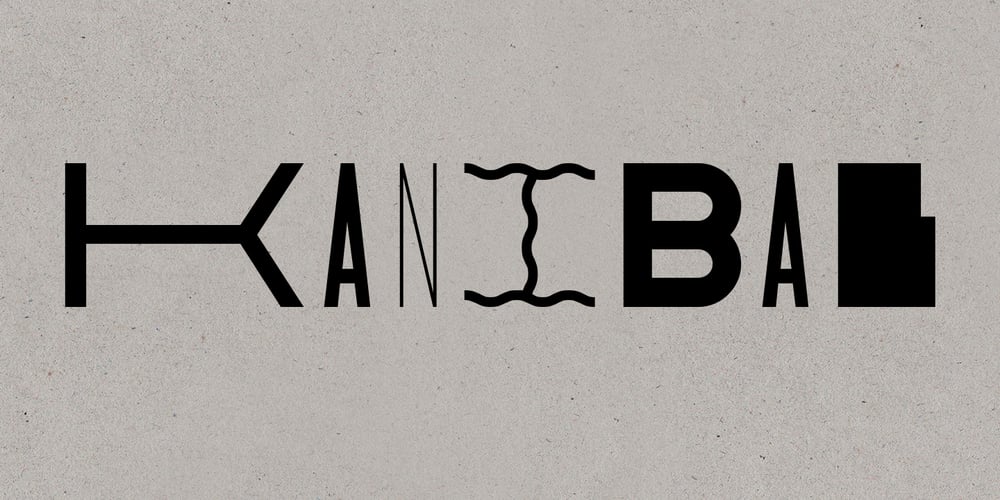
Kanibal
Kanibal font
Kanibal Font Family was designed by Milos Zlatanovic and published by Milos Zlatanovic. Kanibal contains 1 styles and family package options. Kanibal is typeface that creates a game of different shapes and styles. Have fun!